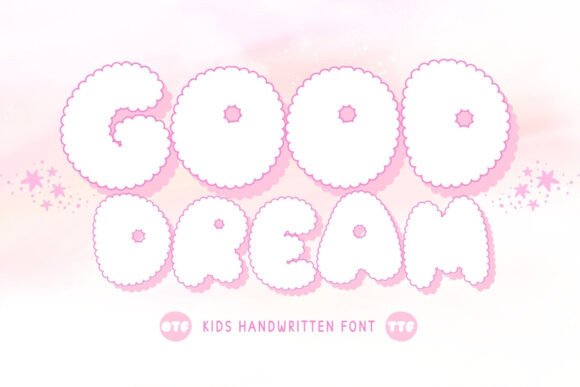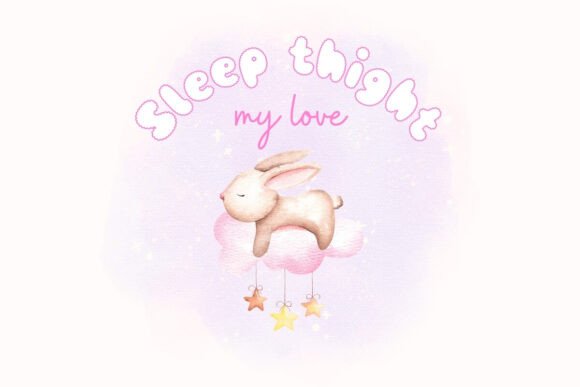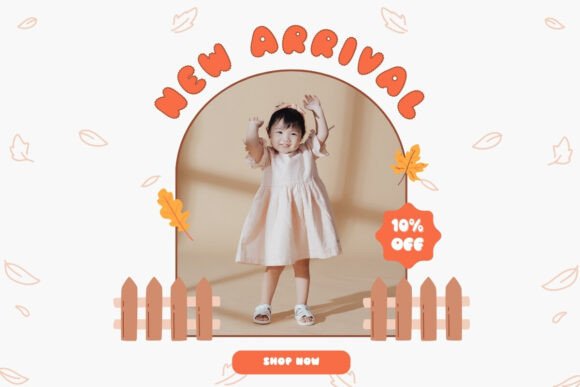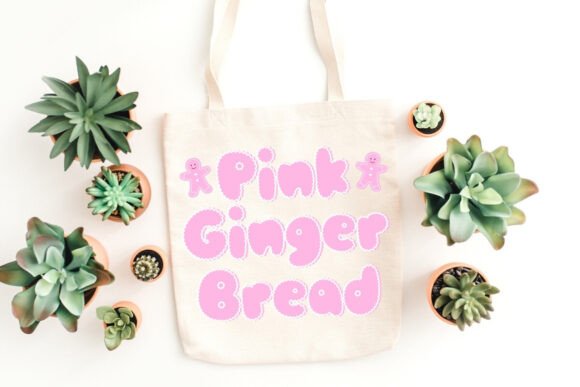
Good Dream Font: A Cute Bubble Font for Nursery Decor & Cricut Crafts
About the Good Dream Font
The wait is over! The incredible Good Dream Font is now available for your design toolkit. The “Good Dream” font is a cute, nursery-style bubble font perfect for children’s projects, educational materials, and whimsical designs. With its rounded, puffy letters and playful aesthetic, this font is ideal for baby shower invitations, kids’ apparel, nursery decor, and more. The “Good Dream” font captures a sense of innocence and wonder, making it a lovely choice for any child-centered design.
Its friendly, rounded forms make it particularly well-suited for children’s books, greeting cards, and playful branding for businesses targeting young audiences. However, its low x-height and informal style make it unsuitable for body text or situations requiring high readability, such as websites or long-form documents.
Pairing “Good Dream” with a clean sans-serif like Open Sans for body copy creates a balanced contrast, while a playful script font such as Pacifico adds another layer of whimsy for projects needing more visual texture. Avoid pairing it with overly serious or geometric typefaces, as this will clash with its inherent softness.
The overall personality of “Good Dream” is cheerful and approachable, reflecting innocence and a sense of lighthearted fun. It’s best used sparingly as an accent, rather than as the dominant typeface in a design.
Good Dream Font Usage Examples
Good Dream Font Example